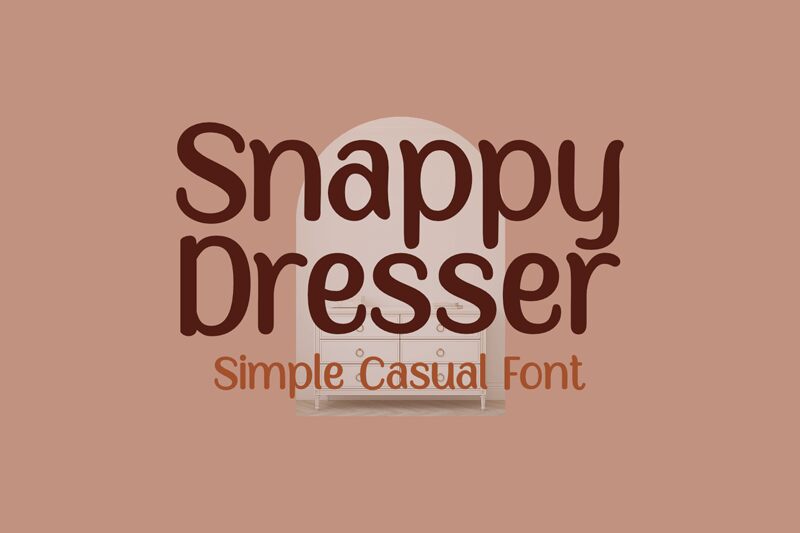
Snappy Dresser Regular
Snappy Dresser, designed by Ali Hamidi, is a casual display font perfect for adding personality to your designs. With its handwritten style and playful curves, this typeface is ideal for projects such as invitations, greeting cards, and social media graphics. The semi-bold font adds emphasis while the medium width ensures readability. Whether you're designing for a fun event or creating a lighthearted brand identity, Snappy Dresser is sure to make your text pop. So why settle for boring fonts when you can dress up your designs with Snappy Dresser?